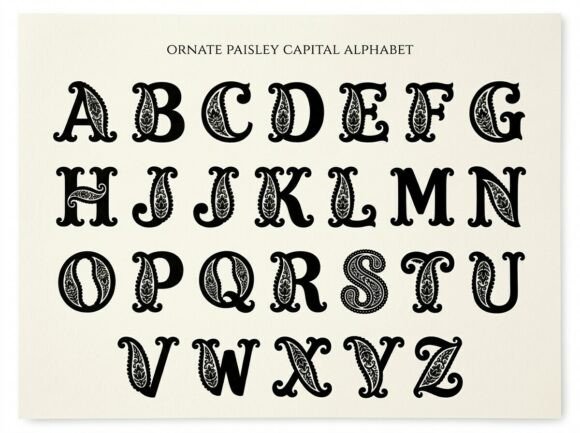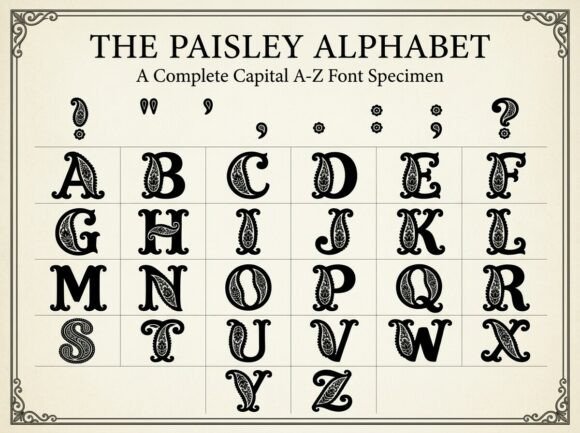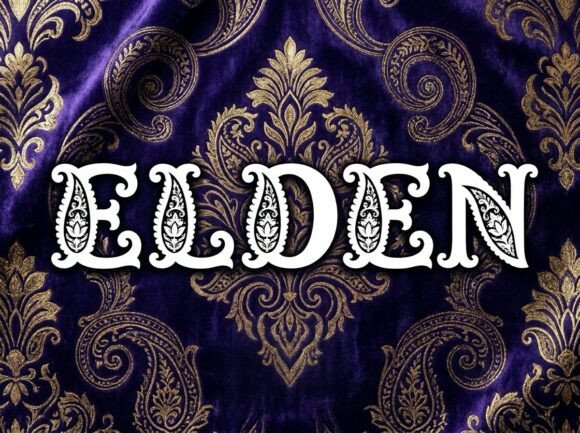
Elden Font: Elevate Your Designs with a Stunning Decorative Display Font
Are you tired of using the same old fonts in your designs? Look no further than Elden Font, a breathtaking decorative display font that’s sure to turn heads. With its unique artistic elements and strong visual personality, this font is perfect for creators who want to break away from the ordinary and make a statement.
What is Elden Font?
Elden Font is a carefully crafted decorative display font designed to be the center of attention. Its distinctive style and flair make it ideal for bold headlines, artistic logos, and creative packaging. Whether you’re a designer, craftsperson, or DIY enthusiast, this font is sure to elevate your work and leave a lasting impression.
Key Features of Elden Font
- Unique Artistic Elements: Elden Font boasts unique artistic elements that set it apart from other fonts. Each letter is a work of art, carefully designed to make a statement.
- Strong Visual Personality: This font has a strong visual personality that’s sure to grab attention. Its distinctive style and flair make it perfect for headlines, logos, and decorative initials.
- Versatile: Despite its bold and artistic style, Elden Font is versatile enough for use in a variety of design applications, from bold headlines to creative packaging.
- Professional and Polished Finish: This font maintains a professional and polished finish, making it suitable for use in high-end designs and projects.
Important Note: All-Caps Display Typeface
IMPORTANT NOTE BEFORE PURCHASE: Elden Font is an ALL-CAPS (Uppercase Only) display typeface. It does not include lowercase letters. It is specifically designed for high-impact headlines, logos, and decorative initials where every letter is a work of art.
This means that Elden Font is perfect for designs where you want to make a bold statement, but it’s not suitable for body text or other applications where lowercase letters are required.
Who is Elden Font for?
Elden Font is perfect for:
- Graphic Designers: If you’re a graphic designer looking for a unique and eye-catching font to use in your designs, Elden Font is a great choice.
- Crafters: If you’re a crafter or DIY enthusiast looking for a font to use in your handmade projects, Elden Font is a great option.
- Sign Makers: If you’re a sign maker looking for a bold and attention-grabbing font to use in your signs, Elden Font is a great choice.
Here are a few tips for using Elden Font:
- Use it for headlines: Elden Font is perfect for use in headlines, titles, and other applications where you want to make a bold statement.
- Experiment with different colors: Elden Font looks great in a variety of colors, so don’t be afraid to experiment and find the perfect color for your design.
- Pair it with other fonts: Elden Font can be paired with other fonts to create a unique and eye-catching design.
Elden Font is a stunning decorative display font that’s sure to elevate your designs and make a lasting impression. With its unique artistic elements, strong visual personality, and versatility, this font is perfect for creators who want to break away from the ordinary and make a statement.